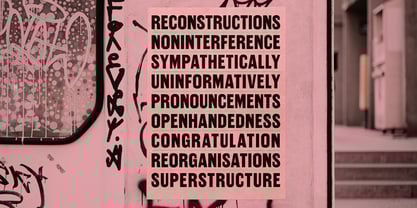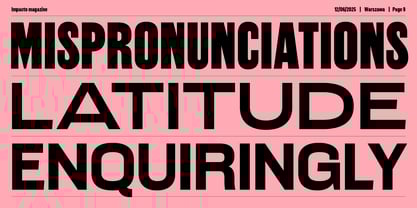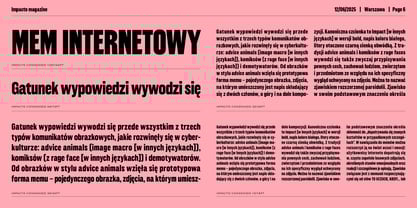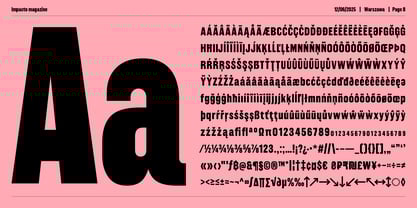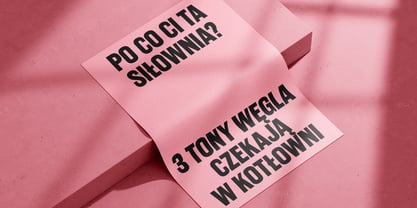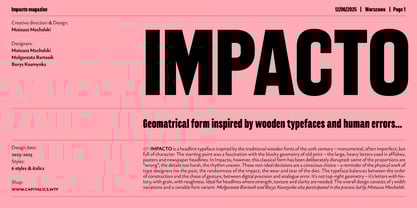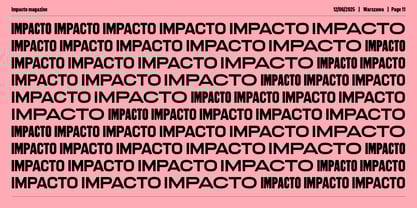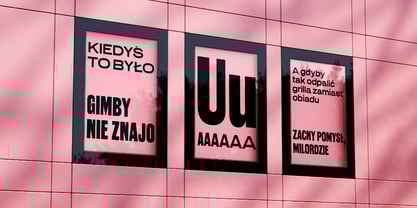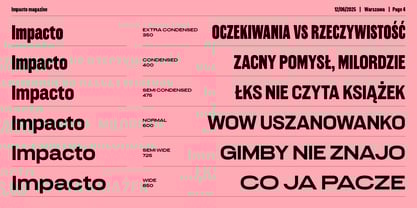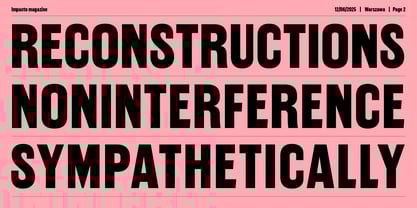
Impacto Sans
by Machalski
The Impacto Sans Font Family was designed by Mateusz Machalski and published by Machalski. Impacto Sans contains 6 styles and family package options.
Impacto is a headline typeface inspired by the traditional wooden fonts of the 20th century – monumental, often imperfect, but full of character. The starting point was a fascination with the blocky geometry of old print – the large, heavy letters used in affishes, posters and newspaper headlines. In Impacto, however, this classical form has been deliberately disrupted: some of the proportions are “wrong”, the details too harsh, the rhythm uneven. These non-ideal decisions are a conscious choice – a reminder of the physical work of type designers ine the past, the randomness of the impact, the wear and tear of the dies. The typeface balances between the order of construction and the chaos of gesture, between digital precision and analogue error. It's not top-right geometry – it's letters with history, with grain, with roughness. Ideal for headlines where strength, texture and clarity are needed. The overall design consists of 5 width variations and a variable font variant. Małgorzata Bartosik and Borys Kosmynka also participated in the process led by Mateusz Machalski.